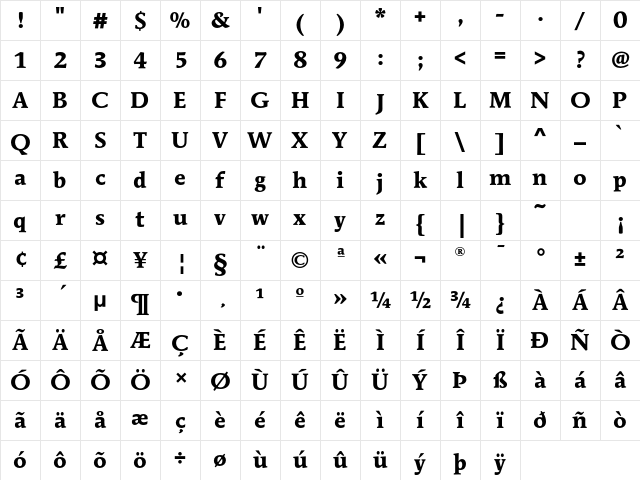
MendozaEF Bold
Complete MendozaEF Bold glyph index. Displaying only characters natively supported by MendozaEF Bold font.
Design Context for MendozaEF
MendozaEF is a composed and adaptable typeface that performs quietly and consistently across a wide range of design contexts. Its bold stroke weight gives it real presence on the page.